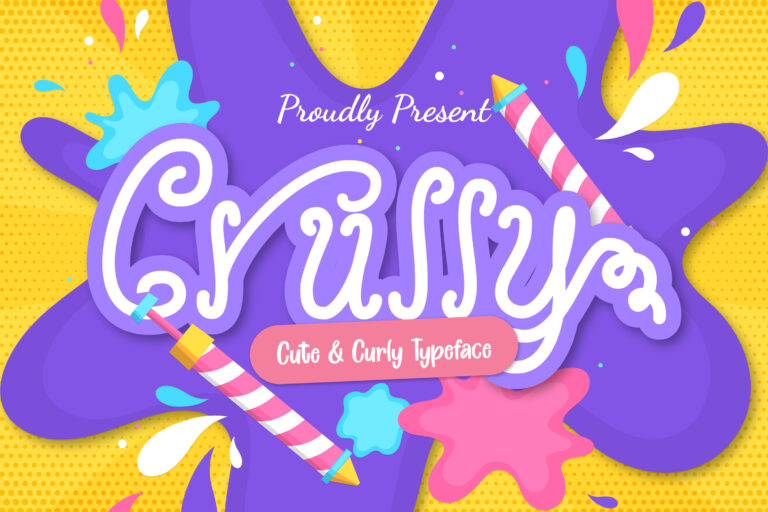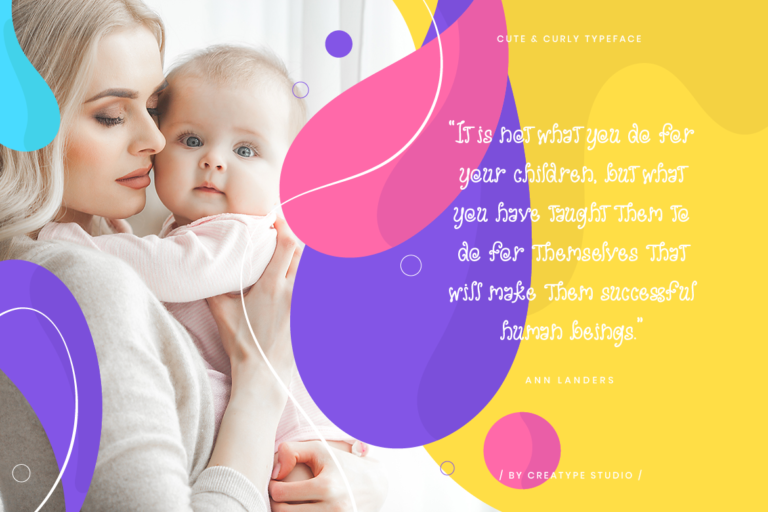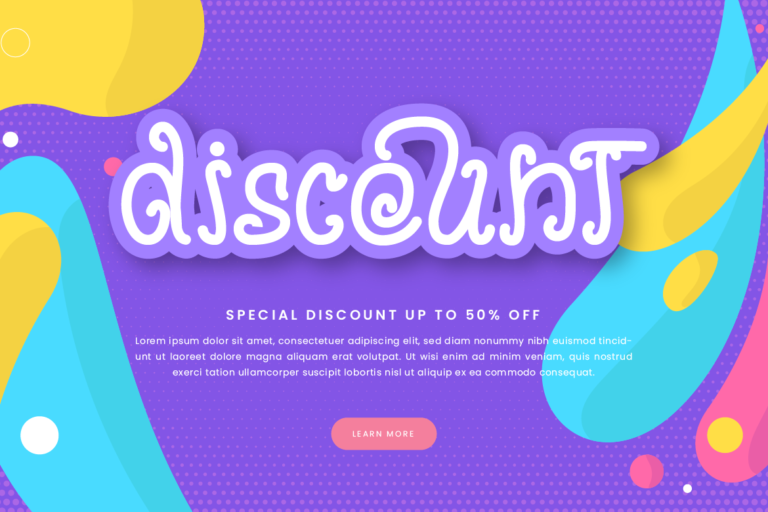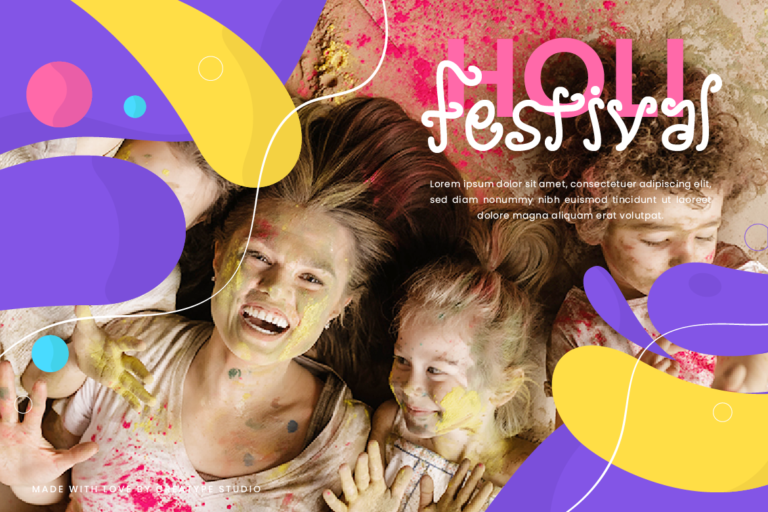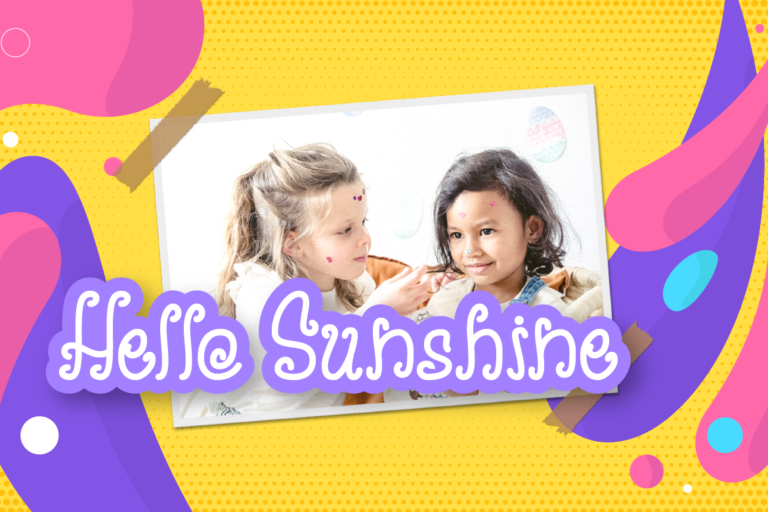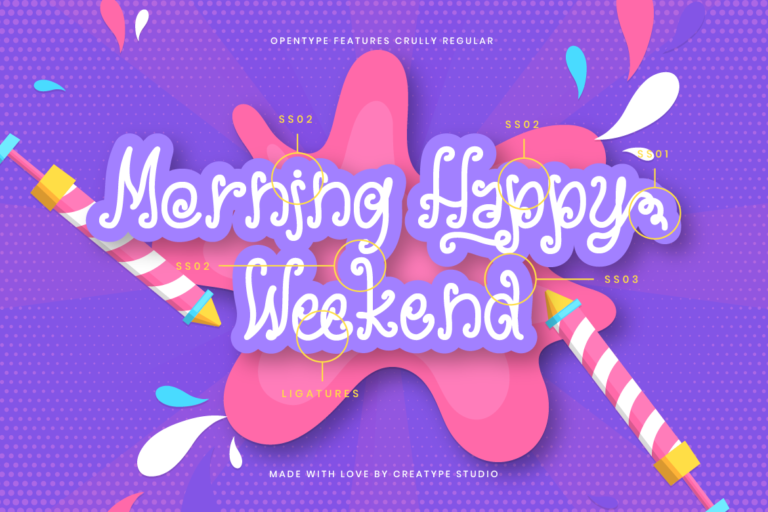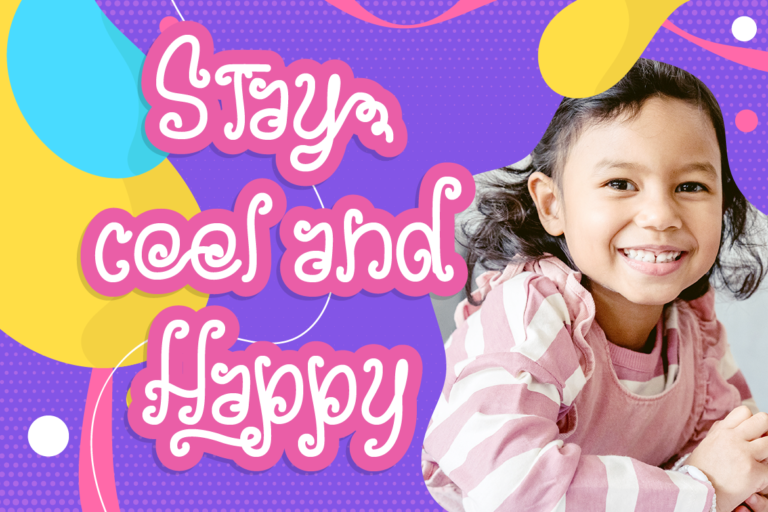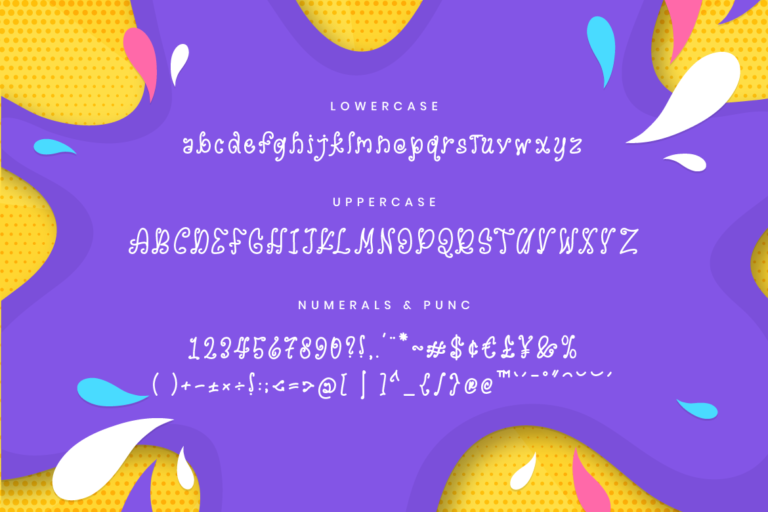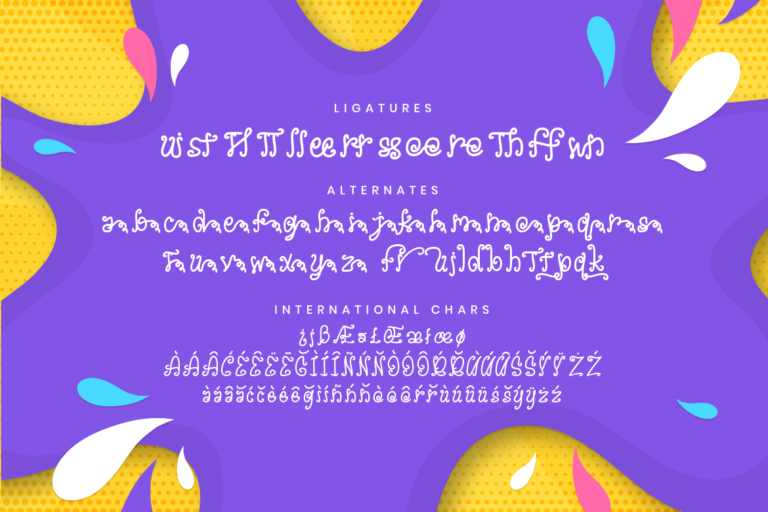
Crully Cute & Curly Typeface
Crully Cute & Curly is a cute and curly typeface that is specially made to produce an extraordinary font. Crully is a uniquely shaped font with strokes that look wavy in each shape.
Crully is perfect for branding projects, logo, wedding designs, social media posts, advertisements, product packaging, product designs, label, photography, watermark, invitation, stationery and any projects that need handwriting taste.